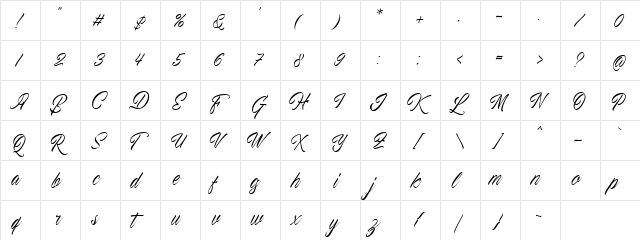
Proactive DEMO Regular
Design Context for Proactive DEMO Typeface
Proactive DEMO is a composed and adaptable typeface that performs quietly and consistently across a wide range of design contexts.